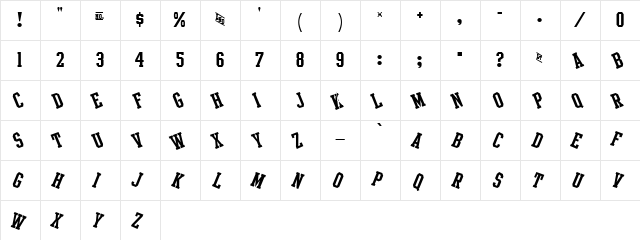
Intramural Jumbled JL Regular
| Foundry | Jeff's Fonts & Dingbats |
| Designer | Jeff Levine from a Ray Larabie original |
Design Context for Intramural Jumbled JL Typeface
Intramural Jumbled JL is a composed and adaptable typeface that performs quietly and consistently across a wide range of design contexts.